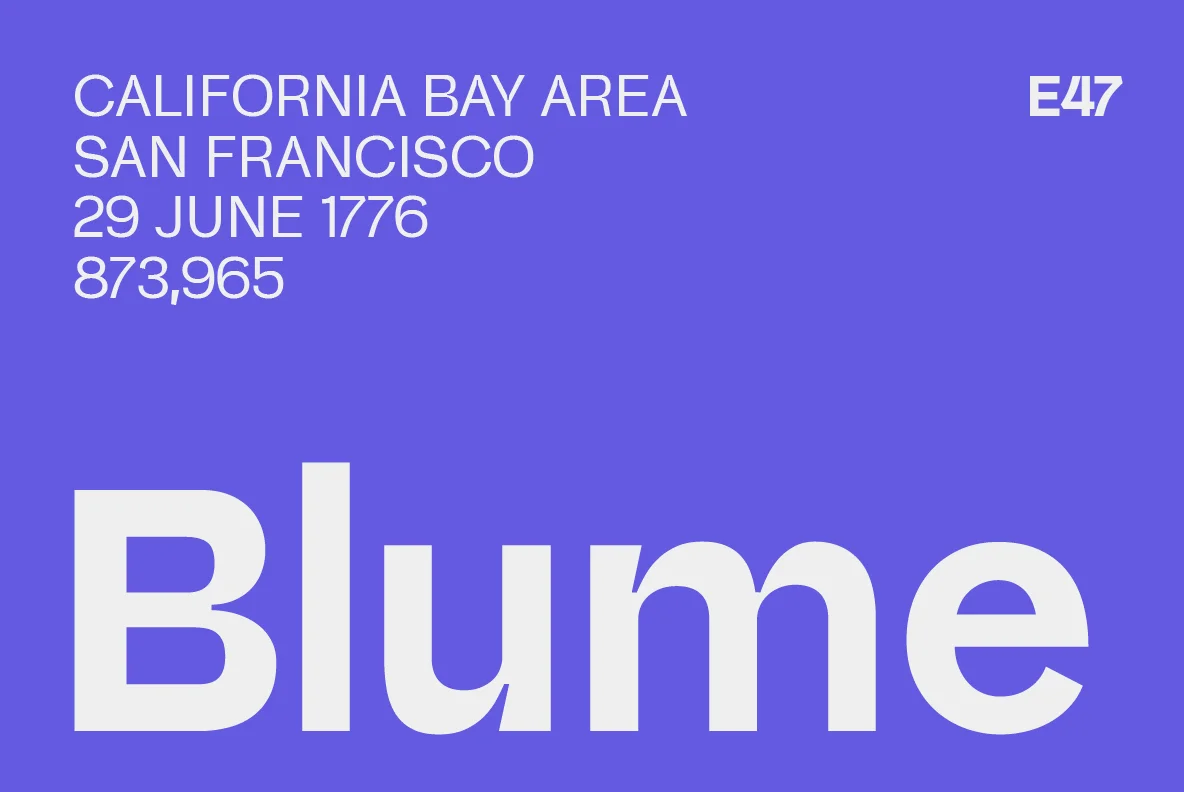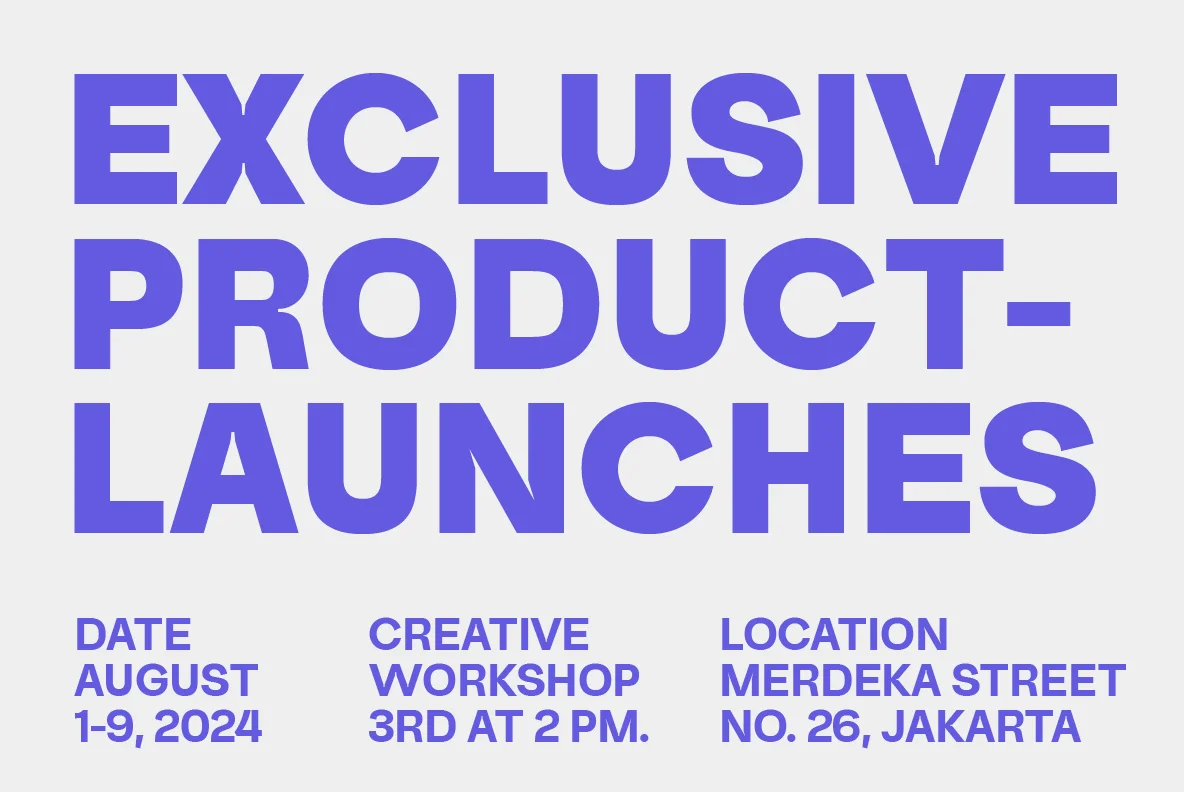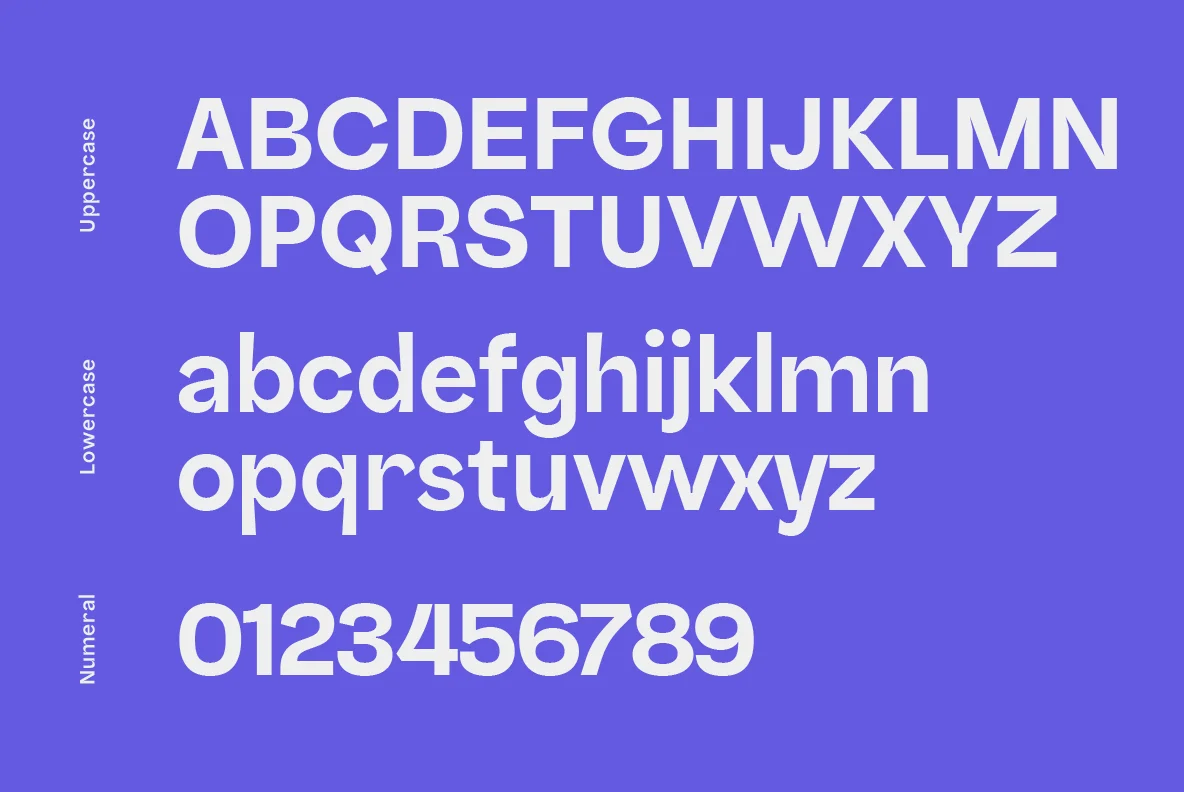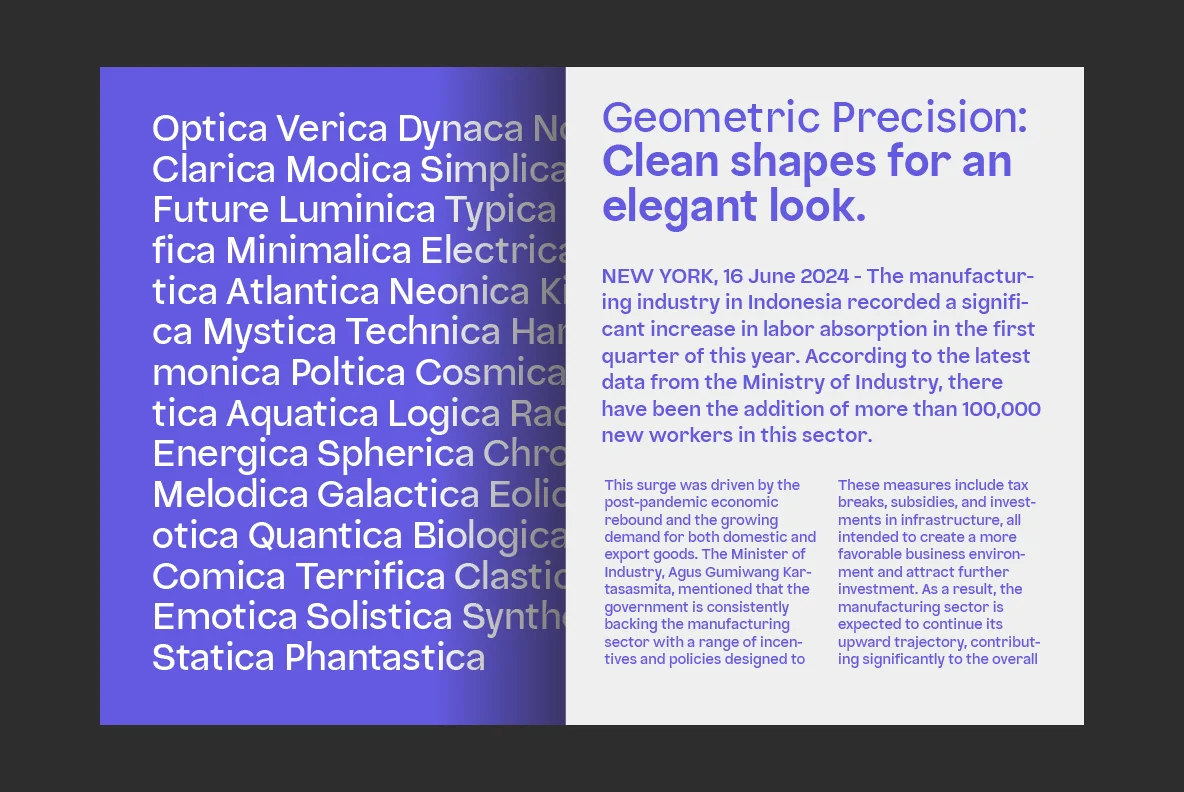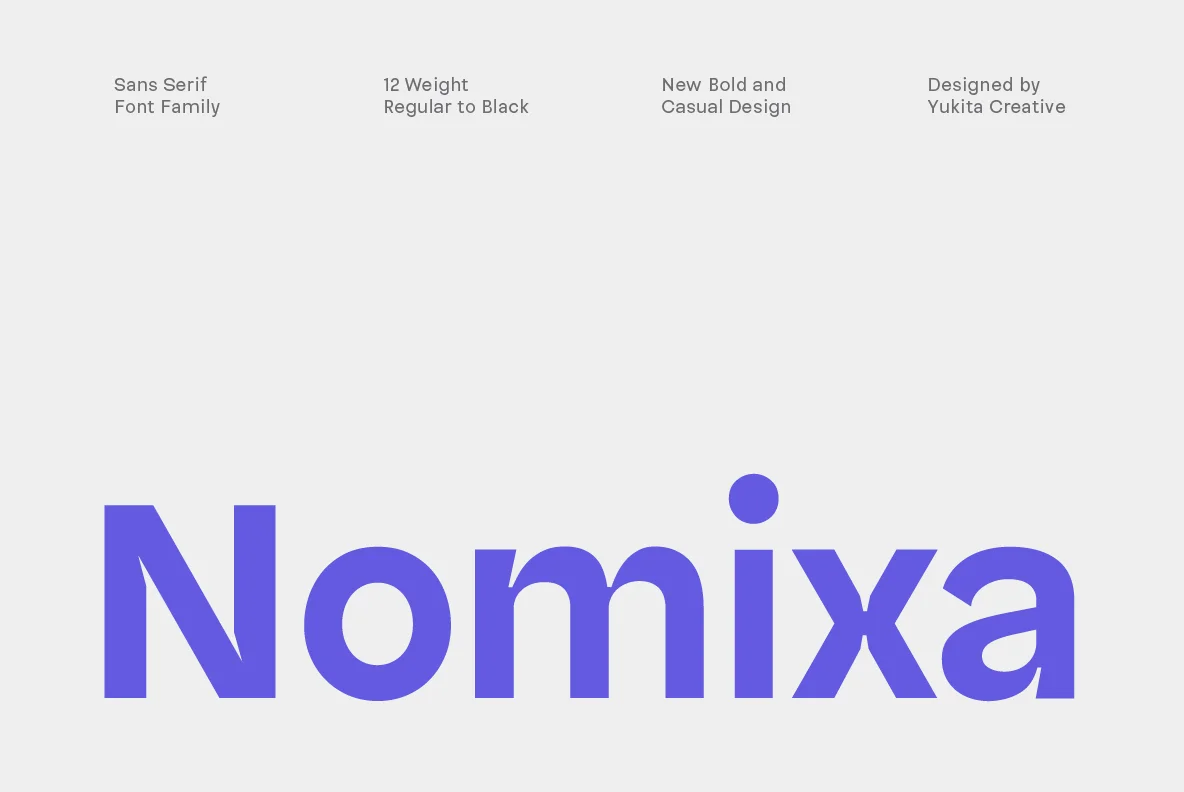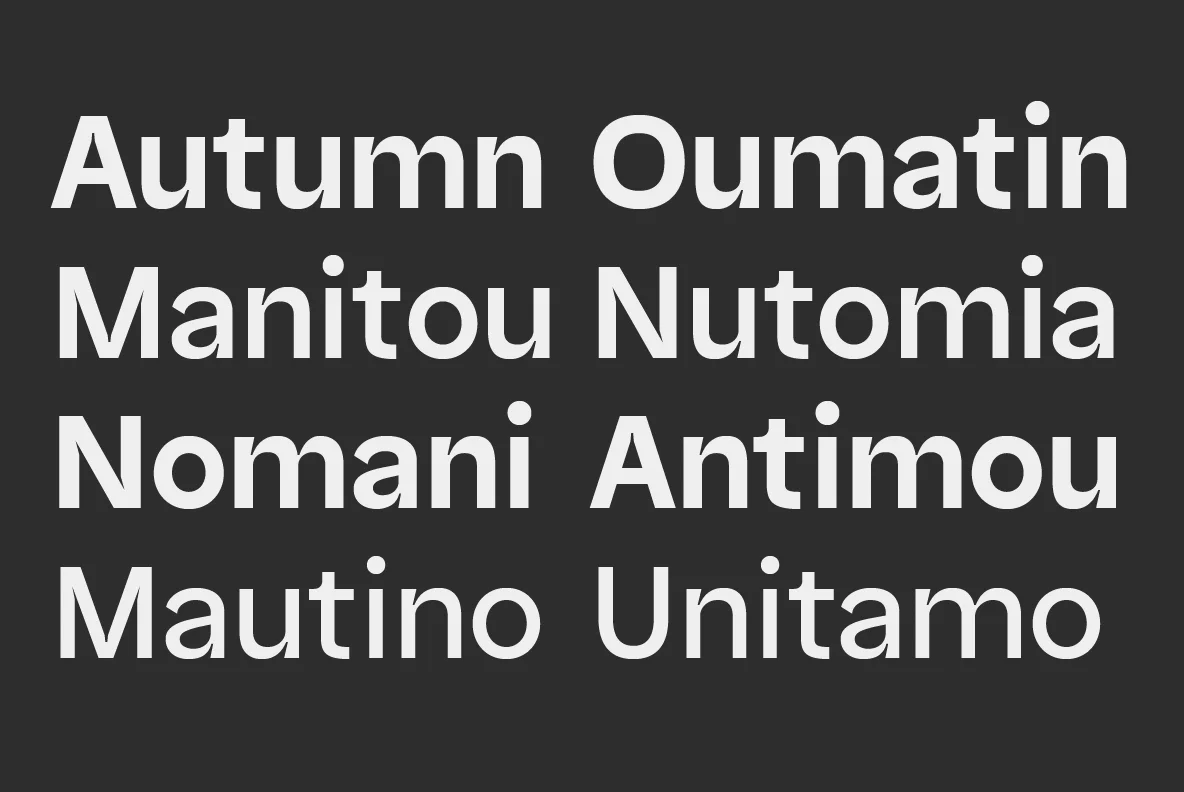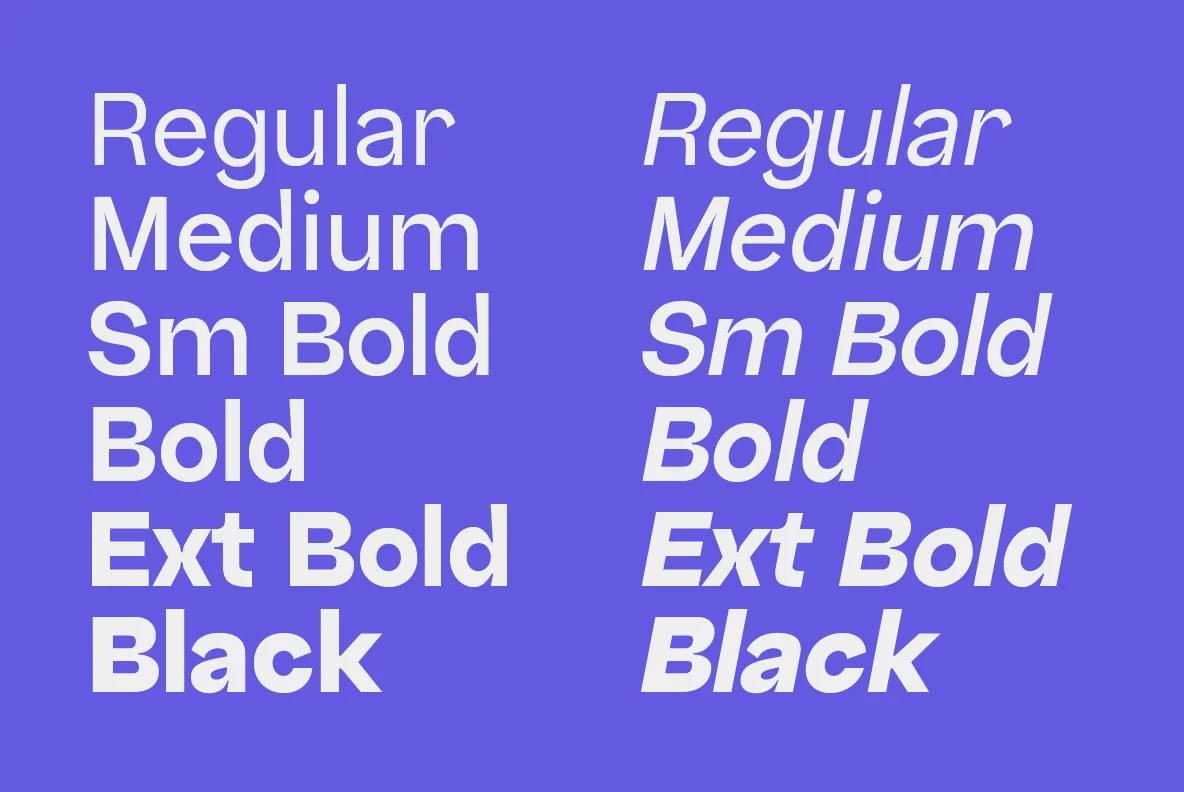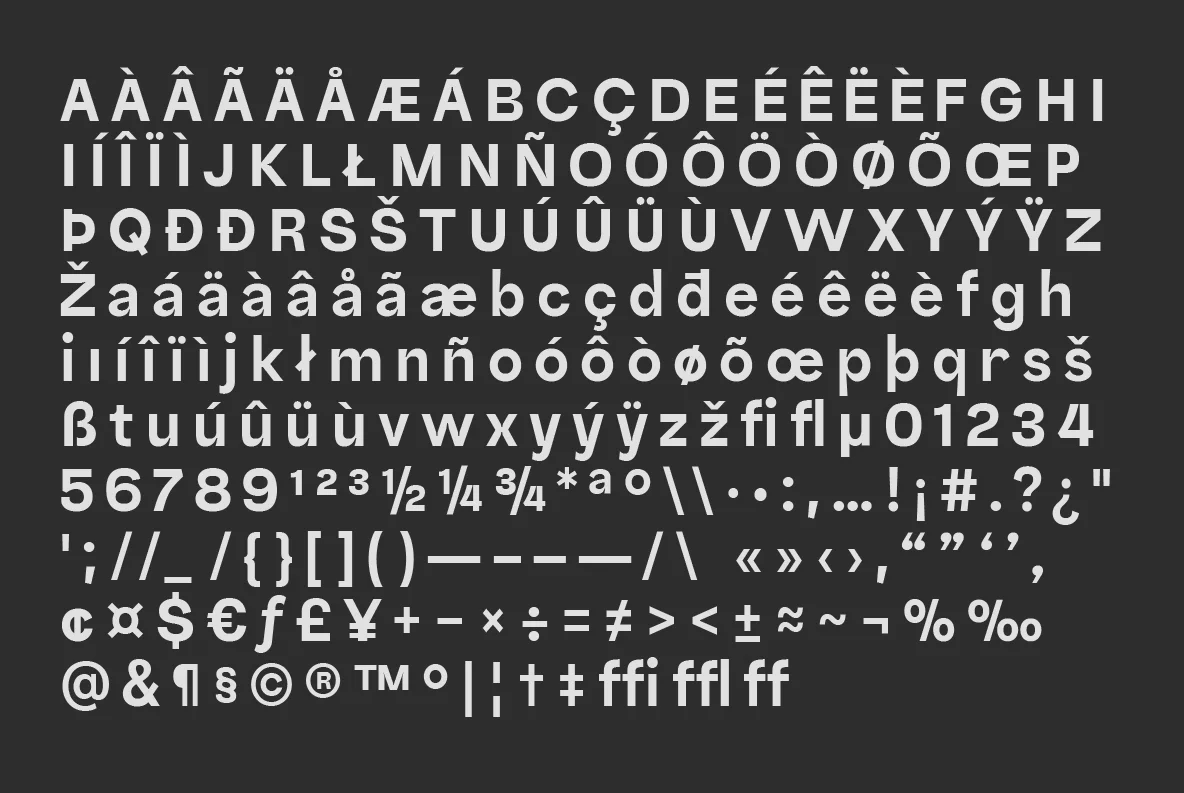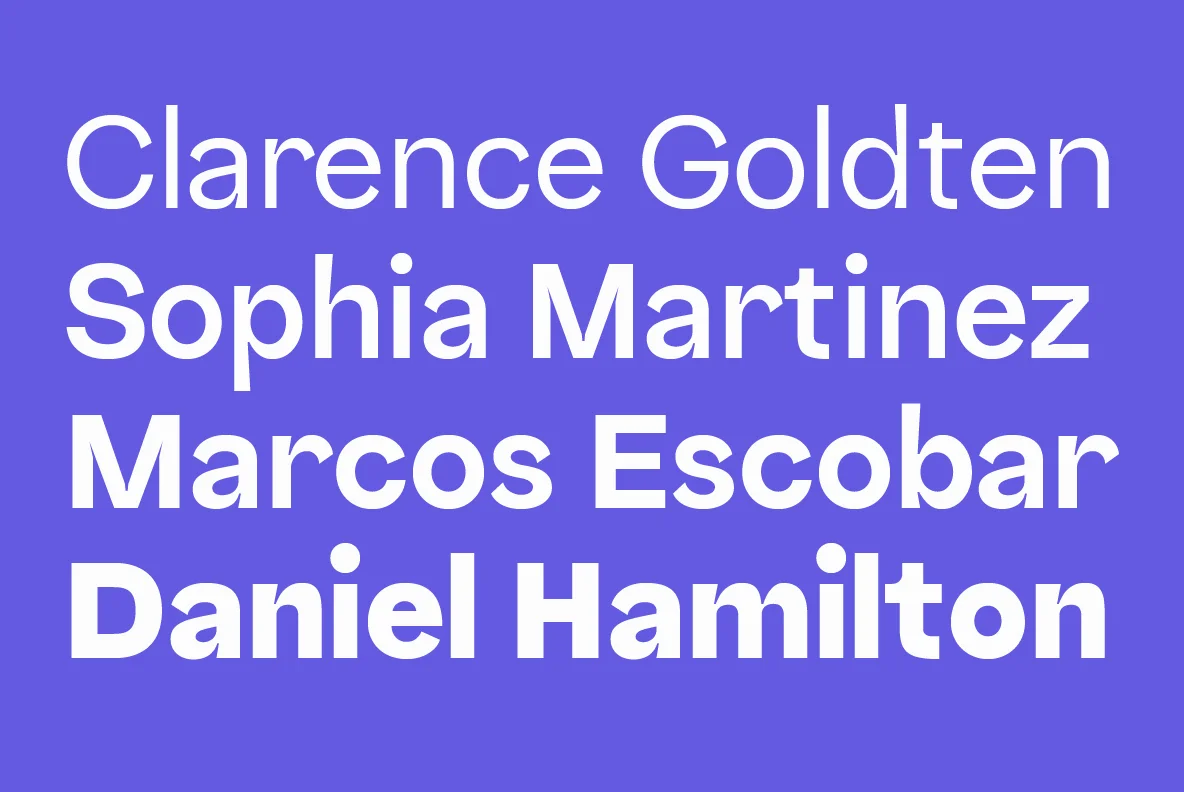
• Professionally crafted sans-serif font family designed to elevate your design projects.
• Includes 12 weights, ranging from light to black, each available in italic versions.
Nomixa Sans Serif Font Family
Nomixa is a professionally crafted sans serif font family designed to help you make a statement with your typography.
It includes 12 weights, ranging from light to black, each available in italic versions, making it ideal for –
• modern branding
• advertising
• packaging
• web design, and more.
Nomixa Sans Serif Font Family stands out with its clean, bold lines and contemporary aesthetic.
This extensive variety allows designers to experiment with different styles and create a cohesive, polished look.
• 12 Font Styles (6 weights + italics)
• Weights Available: 12 (including italics) Regular, Medium, SemiBold, Bold, ExtraBold, Black
• Styles: Upright and Italic (total of 12 fonts)
Sneak Peek Into Normixa Sans Serif Font Family:
Nomixa Sans Serif Font Family Bold Numbers and alphabets
Bold Uppercase alphabets of Sans Serif Bundle
Nomixa Sans Serif Font Family, special characters
Paragraph and heading comparison in blue and white background
Nomixa Sans Serif Font Family Contents
Nomixa Sans Serif Font Family Semi Bold Alphabets
Nomixa Sans Serif Font Family Font Comparison
Nomixa Upper Case Alphabets
Nomixa Sans Serif Font Family Blume Font
Nomixa Sans Serif Font Family Fonts Comparison